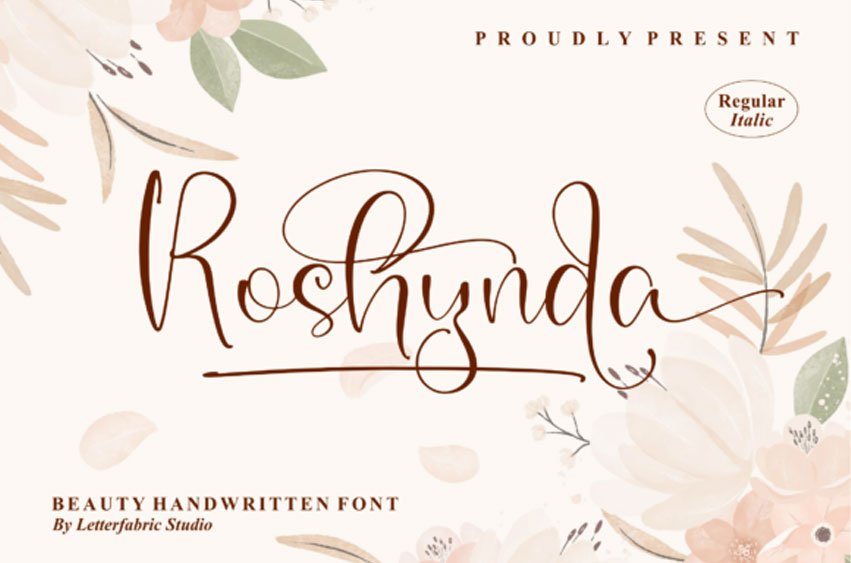
Roshynda Font is a delicate handwritten font. This versatile script font has a wide spectrum of applications ranging from greeting cards to headlines and logos.
Roshynda is PUA encoded which means you can access all of the glyphs and swashes with ease!